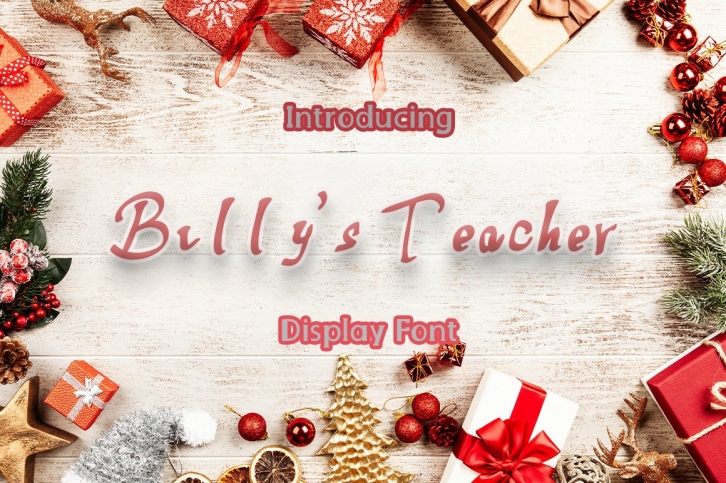
Billys Teacher is a gorgeous font that was realeased on January 26, 2021. The font can be used in many style contexts and design environments. Perfect for invitations, magazines, websites, logos, and more! It was designed by iblfzn and the file size is 12.17 MB. Thanks for checking out this font!